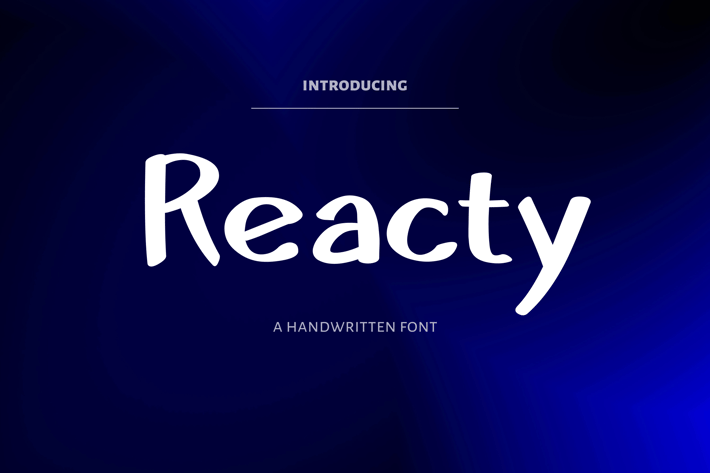
Reacty - Handwritten Font
Reacty - a Handwritten Font is perfect for branding projects, quote posts, social media posts, stylish design, street art, personal projects, advertisements, product packaging, labels, photography, invitations, business cards, logos, stationery, fashion ads, etc.
Basic Latin A-Z and a-z
Number and Punctuation Symbols